Fonts have the power to change the meaning of a phrase or even a sentence. It can alter the reading experience, capture the attention of the reader, and also leave an impact about a person/brand. Other than that, many prefer reading text in the fonts they prefer. That is why the demand for fonts apps for Android phones is on the rise around the world.
Several smartphone manufacturers like Samsung and HTC offer a built-in library of fonts that the users can try out. You will find it under Settings > Display. For those don’t like what these phones have to offer or don’t have fonts installed, there is a selection of fonts apps to choose from on the Play Store. All fonts apps listed below are free and ad-supported. Of course, you can always opt for the in-app purchase option that lets you remove the ads.
1. Stylish Fonts
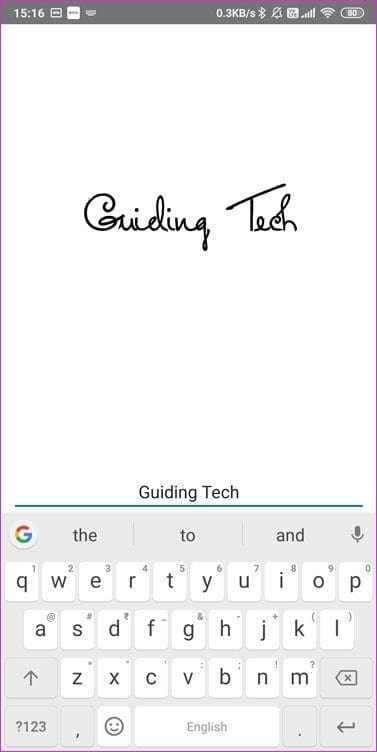
There is a message maker section where you can use different backgrounds for text messages designed using different font types and sizes. You can then share these messages directly on social media platforms like Instagram, Facebook, and more. You can now write and share cool quotes you read somewhere on the web in a colorful background now.
2. HiFont
HiFont comes with a lot more options compared to Stylish Fonts above. These fonts are neatly sorted into categories, and you can also find the most popular ones under the Hot tab. What caught my eye were the colorful and animal-shaped fonts that will add a different and unique look to the regular boring black and white fonts we usually see.
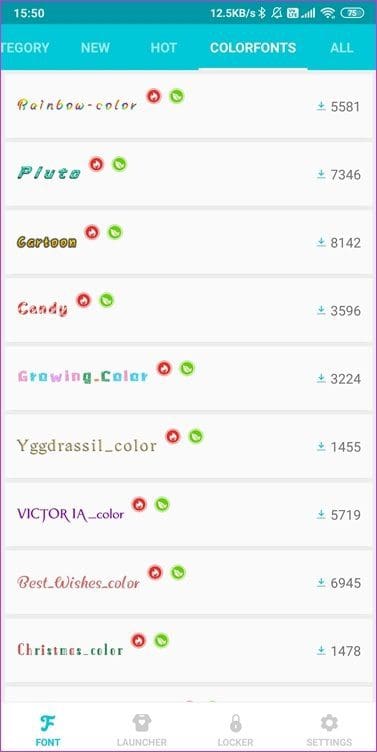
You will notice the number of times each font was downloaded next to it. A good way to gauge the popularity of the font in question. Don’t forget to read the app description on Play Store as certain OEM manufacturers make it hard to change fonts. That means you may require a rooted phone to make the fonts app work sometimes.
3. Enlarge Font
If you are using a smartphone that doesn’t allow increasing the font size, this is the font app for your Android phone. You can increase the size of the font from 20% up to 300%. That should be enough for most people who have a weak vision and have trouble reading what’s on the screen.
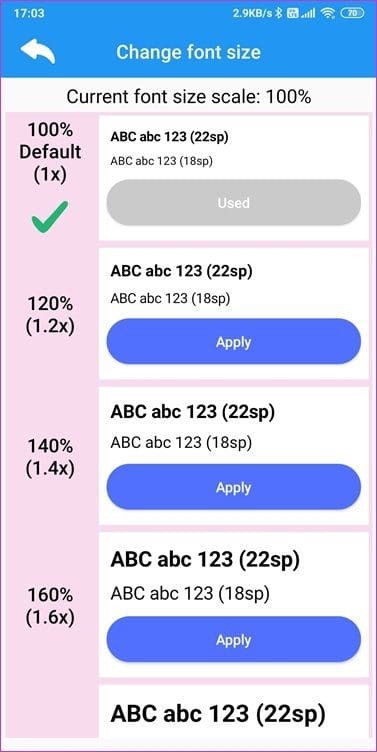
Enlarge Fonts does one thing, and it does it well. If you are looking for fonts type then this is not your app. You may use it in conjunction with other apps on the list. Note that you will have to give the app permission to access the system settings before it can make necessary changes. Just tap on Allow on the pop-up menu when asked.
4. Phonto
Phonto is a popular fonts app for Android smartphones that you can use to write on photos and images. You can choose from many colorful backgrounds or use custom images. In fact, you can also install custom fonts from the web if you like.
Once you have selected a background, it’s easy to change text size, position, style, tilt, and color as you want. Phonto is very easy to use, and you can save the result in either JPEG or PNG format. The versatile Android fonts app was developed with social media users in mind. It’s not for changing system fonts.
5. iFont
iFont comes with an exhaustive list of fonts that you can install on your smartphone. It was designed to change and manage your system fonts. There are tons of fonts here, and you can also find them in the language of your choice. There are 10 languages supported, including French, Spanish, Arabic, and Russian.
iFont also supports Xposed Framework, which means you can now do a lot more with those fonts. One example is the ability to change the system font color as well. That would look cool, especially if you match it with your wallpaper.
Fonts Matter
A font style can literally make or break the message that you are trying to send. In case you are installing the font on your phone to change how everything looks, it can lift your mood or paint a scary picture. It all depends on which font you choose to go with. Whether you are writer, marketer, or the end-user, remember that fonts matter.